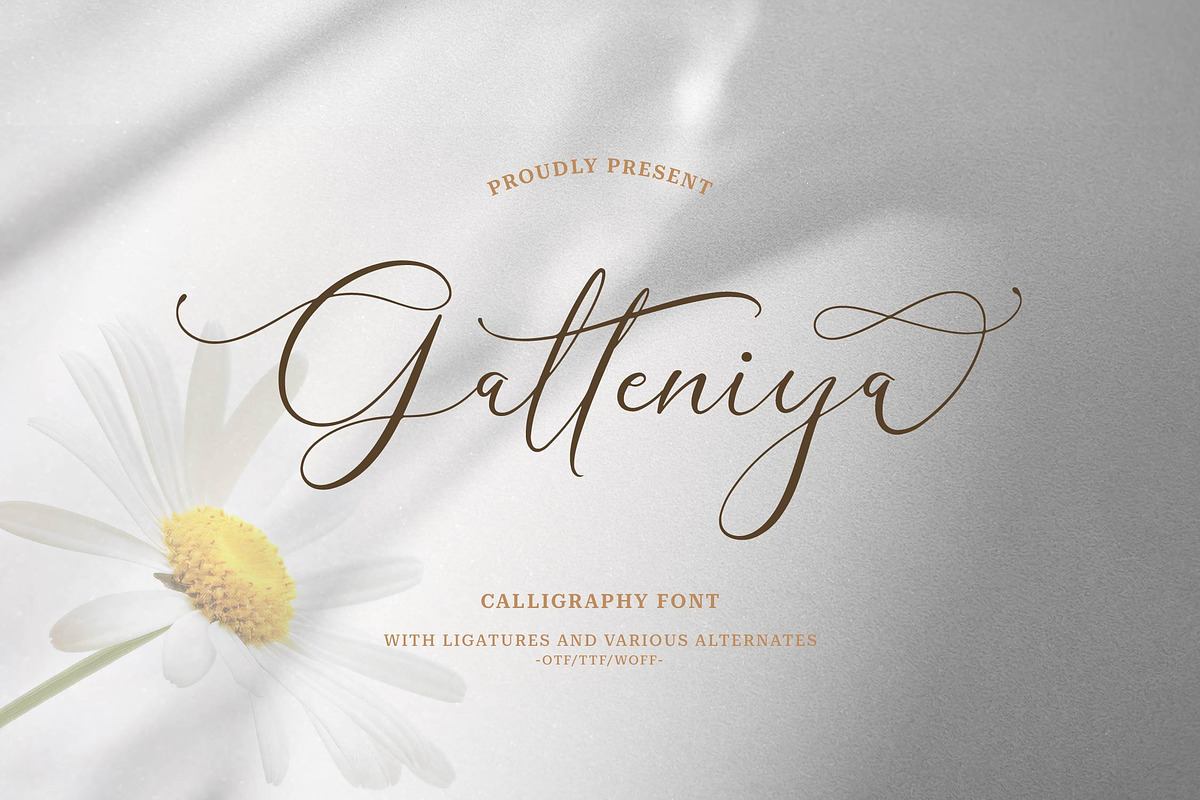
Galteniya | Beautiful Script Free Download
Galteniya | Beautiful Script Font Free Download
Please note, to use this font for commercial purposes, you must purchase the full version. Galteniya is an elegant and beautiful script font that combines flowing letterforms with a sophisticated design. Perfect for wedding invitations, branding, logos, and other high-end creative projects, this font adds a personal, handwritten touch to your designs. Whether you're designing for a luxury brand, a special event, or a chic product, Galteniya brings elegance and charm to your work. Test it out and enjoy free download access for personal use. Experience the graceful beauty of Galteniya | Beautiful Script Font Free Download before purchasing the commercial license. Add an elegant, refined touch to your designs with Galteniya.